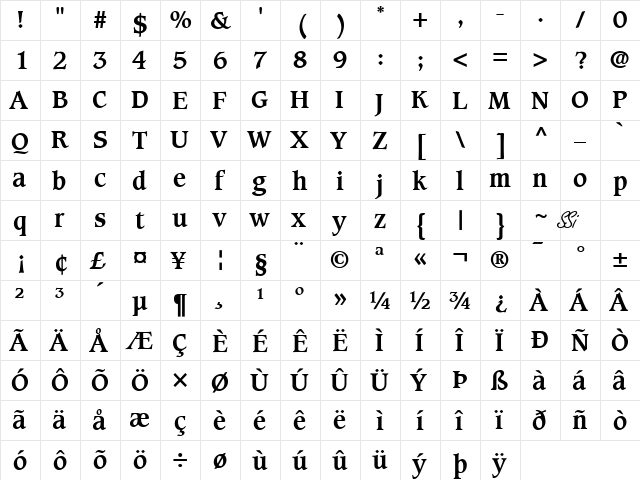
Grammateus SSi Bold Font Preview
Grammateus SSi Bold
Design Context for Grammateus SSi Typeface
Grammateus SSi is a composed and adaptable typeface that performs quietly and consistently across a wide range of design contexts. Its bold stroke weight gives it real presence on the page.